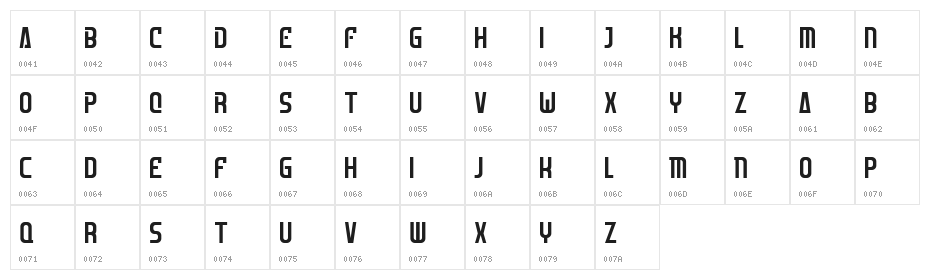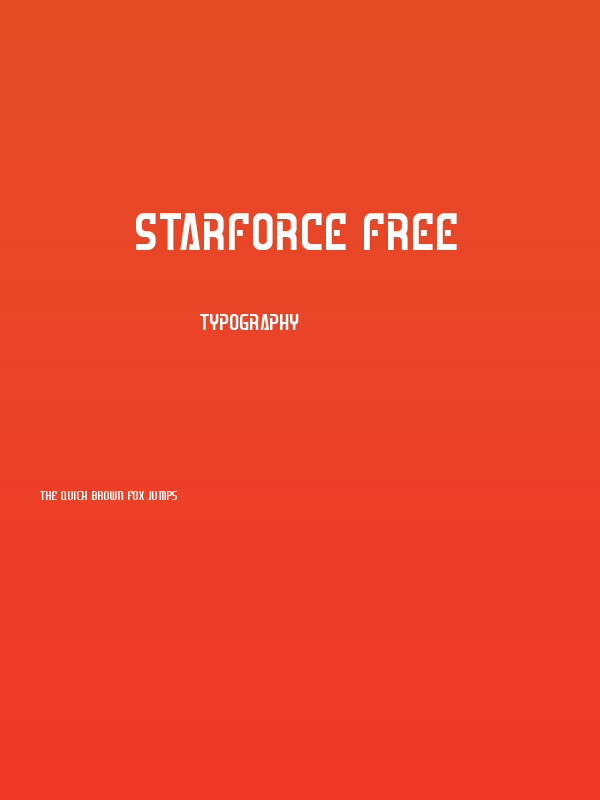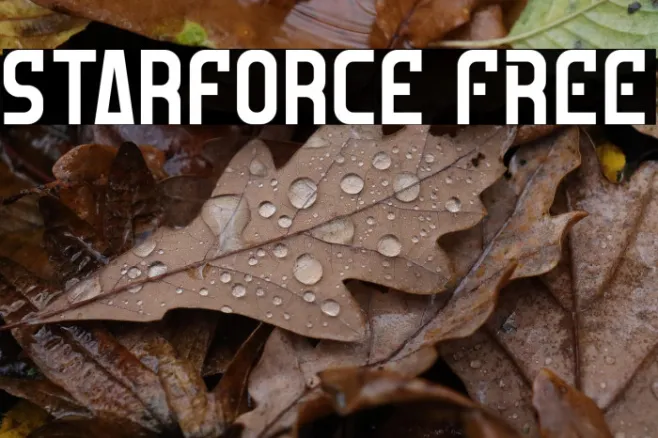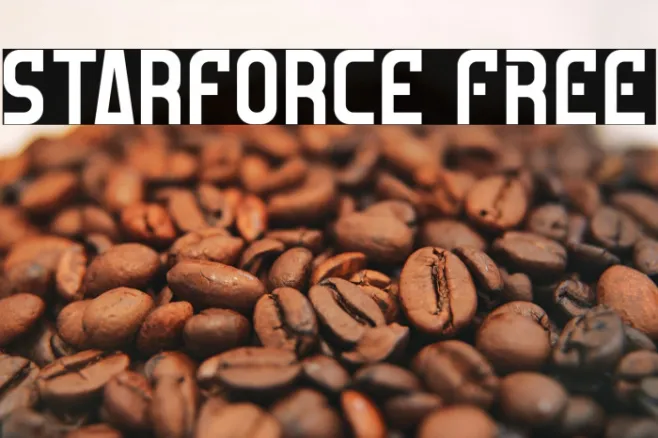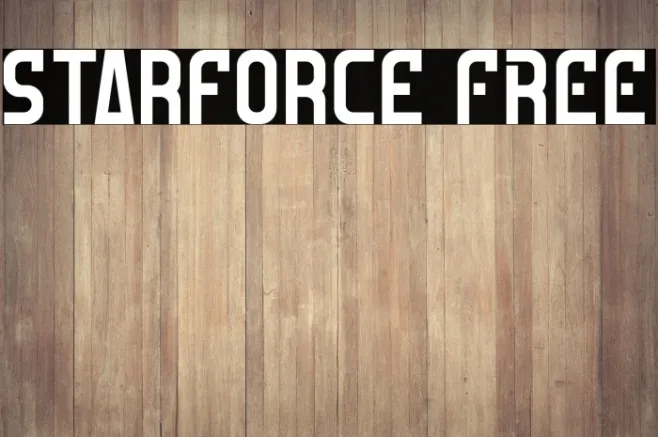
Starforce FREE Font
Starforce FREE Description
This font exhibits a bold and futuristic design, characterized by its geometric and angular letterforms. The uppercase letters are particularly striking, with sharp edges and a consistent stroke width that gives a sense of uniformity and strength. The lowercase letters maintain the same boldness, ensuring readability while adding a unique flair with their slightly condensed form. The numbers and special characters are crafted with the same attention to detail, making them suitable for a variety of design applications. Overall, the font conveys a sense of modernity and technological advancement, making it ideal for projects that require a strong visual impact.